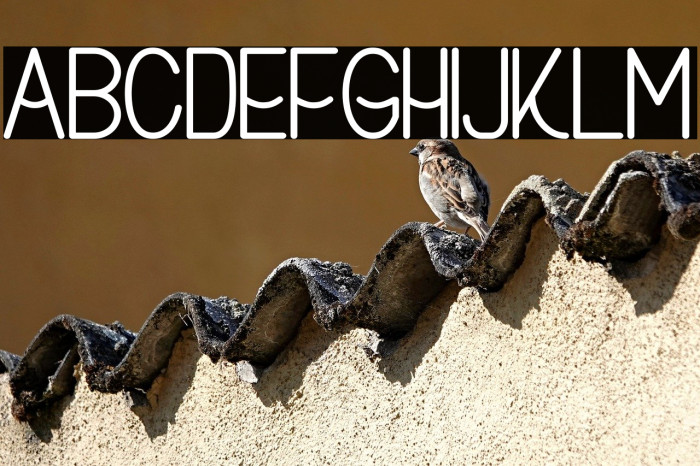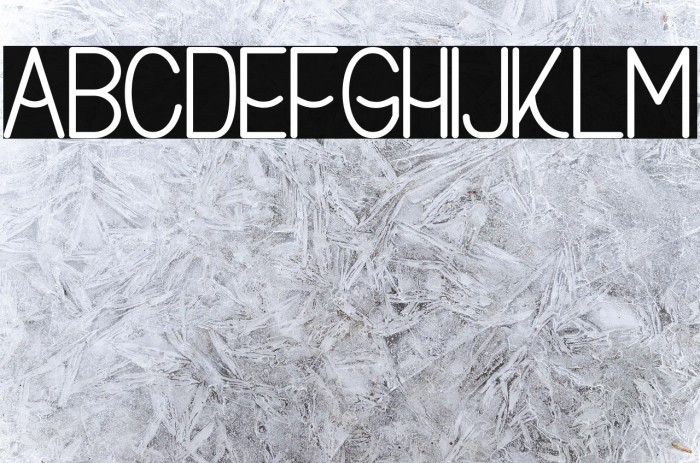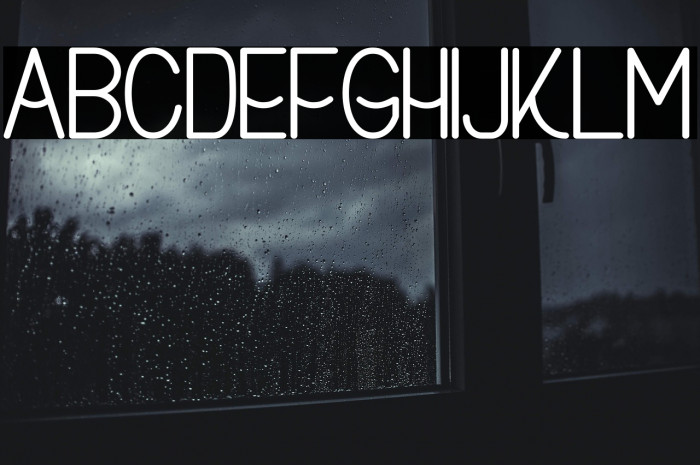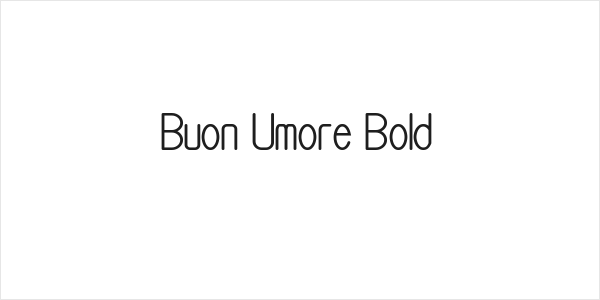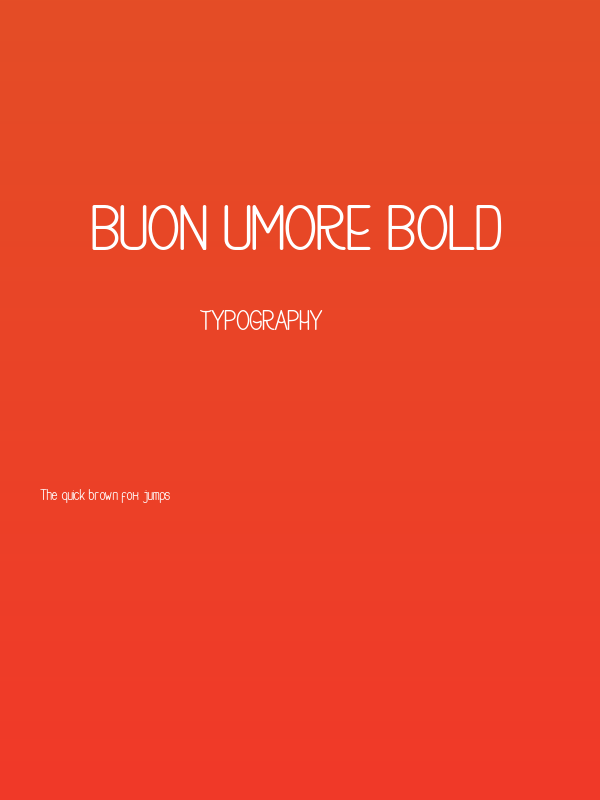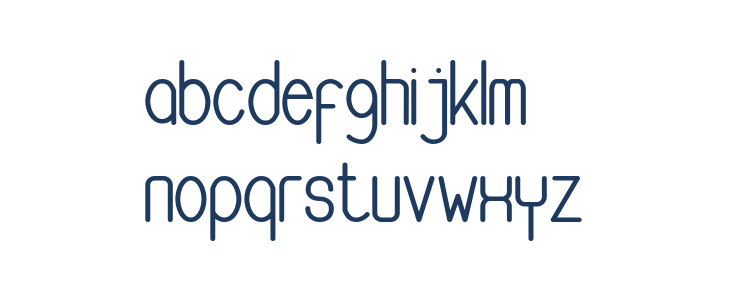
Buon Umore Bold Font
Buon Umore Bold Description
This font features a playful and rounded style, characterized by its smooth curves and consistent line thickness. The letters are evenly spaced, creating a harmonious and approachable appearance. The uppercase and lowercase letters maintain a uniform height, contributing to its clean and modern look. Numbers and special characters are designed with the same rounded edges, ensuring a cohesive feel throughout. This font's simplicity and charm make it suitable for a variety of creative applications.
| Proposed Projects | Ideal for children's books, playful branding, casual invitations, and creative posters. |